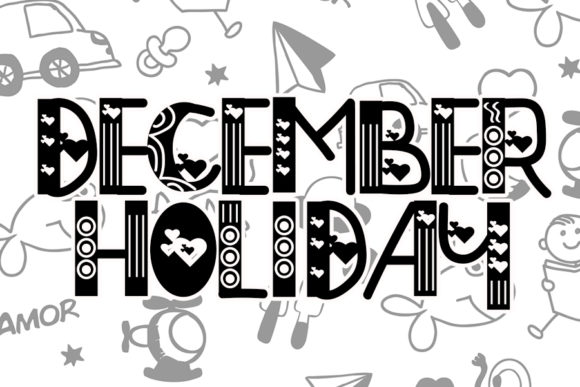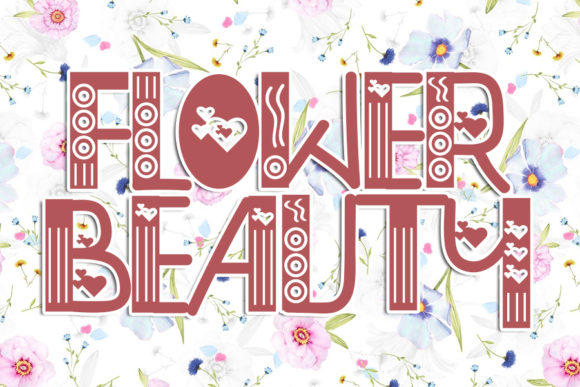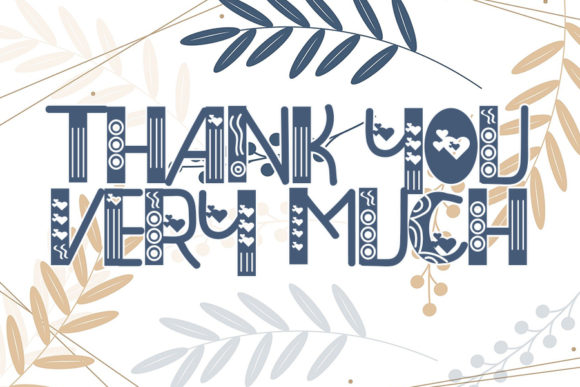
Hello Christmas Font: A Beautiful and Unique Display Font for Your Holiday Projects
The holiday season is upon us, and with it comes the need for festive and fun designs. If you’re a designer, crafter, or DIY enthusiast looking for the perfect font to add a touch of Christmas magic to your projects, look no further than the Hello Christmas font. This stunning display font is sure to become a favorite in your collection, and for good reason. In this article, we’ll take a closer look at the Hello Christmas font, its features, and how you can use it to make your holiday designs shine.
What is Hello Christmas Font?
Hello Christmas is a very beautiful and unique display font that is perfect for adding a festive touch to your designs. With its original look, this font is sure to appeal to a wide range of crafty ideas, from letterheads and titles to stationery and more. Whether you’re creating holiday cards, gift tags, or social media graphics, the Hello Christmas font is the perfect choice.
Key Features of Hello Christmas Font
So, what makes the Hello Christmas font so special? Here are just a few of its key features:
- Unique and original design: The Hello Christmas font boasts a one-of-a-kind design that’s sure to stand out from the crowd.
- Festive and fun: This font is perfect for holiday designs, with a playful and cheerful vibe that’s sure to put a smile on your face.
- High-quality and versatile: The Hello Christmas font is designed to be used in a variety of projects, from digital designs to print materials.
- Easy to use: With its clear and clean design, this font is easy to read and use in a variety of contexts.
How to Use Hello Christmas Font in Your Designs
Now that we’ve covered the basics of the Hello Christmas font, let’s talk about how you can use it in your designs. Here are a few ideas to get you started:
- Holiday cards and invitations: Use the Hello Christmas font to create festive and fun holiday cards and invitations that are sure to impress.
- Social media graphics: Add a touch of Christmas magic to your social media graphics with this beautiful font.
- Gift tags and wrapping paper: Use the Hello Christmas font to create custom gift tags and wrapping paper that will make your gifts stand out.
- Stationery and letterheads: Add a festive touch to your stationery and letterheads with this unique and original font.
Tips for Getting the Most Out of Hello Christmas Font
To get the most out of the Hello Christmas font, here are a few tips to keep in mind:
- Experiment with different colors and textures: Don’t be afraid to try out different colors and textures with the Hello Christmas font to create a unique look.
- Use it in combination with other fonts: The Hello Christmas font pairs well with a variety of other fonts, so don’t be afraid to experiment with different combinations.
- Pay attention to font size and spacing: Make sure to adjust the font size and spacing to ensure that your text is clear and easy to read.